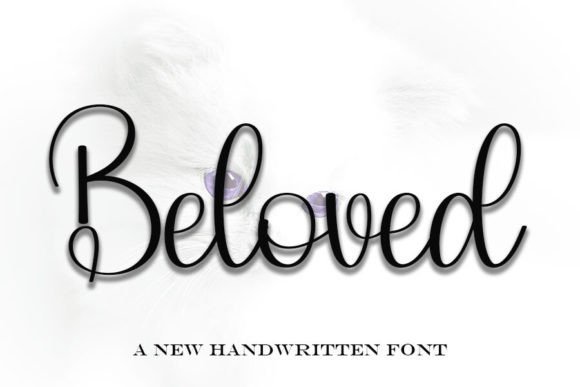
Have you ever stumbled upon a design that makes you stop and stare, wondering how the designer managed to capture your heart with just a few strokes of their pen? That’s the magic of creating something truly special, and it’s exactly what the Beloved Font aims to achieve.
This beautiful handwritten font is designed to bring a touch of elegance to your projects, making it perfect for invitations, greeting cards, and even social media graphics. With its unique, timeless style, the Beloved Font is sure to leave a lasting impression on your audience.
For designers, the Beloved Font is a valuable addition to their toolkit, offering a fresh perspective and endless creative possibilities. Whether you’re working on a personal project or a commercial campaign, this font is sure to inspire you to create something truly remarkable.
Beloved Font Key Features
- Unique Characteristics: Beloved Font features a unique blend of modern and vintage elements, with elegant lines and subtle flourishes that evoke a sense of sophistication and refinement.
- Scalability: Beloved Font is designed to be highly scalable, ensuring that it remains legible and visually appealing at various font sizes, from small captions to large headlines.
Designer Review: Beloved Font
Overall, I’d say that the Beloved Font has some lovely qualities, but also some areas where it falls short.
- Beautiful Brushstrokes: The font’s hand-drawn feel is undeniably charming, with lovely brushstrokes that add a touch of personality to any text.
- Good Legibility: While not perfect, the font is generally easy to read, especially at larger sizes.
- High-Quality Variations: The font comes in a range of weights and styles, making it versatile for a variety of design applications.
- Small Text Issues: At smaller sizes, the font’s brushstrokes can become difficult to read, and the text may start to look cluttered.
- Lack of Consistency: Some of the font’s weights and styles seem inconsistent in their execution, which can be jarring to the eye.
- No Cyrillic or Greek Support: Unfortunately, the font only includes Latin characters, limiting its use for international designs.
The Beloved Font is a lovely addition to any designer’s toolkit, but it’s not without its flaws. While it excels in certain areas, its limitations may make it less suitable for certain design applications.
Tips for Getting the Most Out of Beloved Font
To get the most out of Beloved Font, use it in conjunction with other design elements to create a cohesive look.
Experiment with different font sizes, colors, and settings to find the perfect balance for your design.
Beloved Font is ideal for:
Editorial and publishing design
Any design where a elegant and sophisticated look is desired